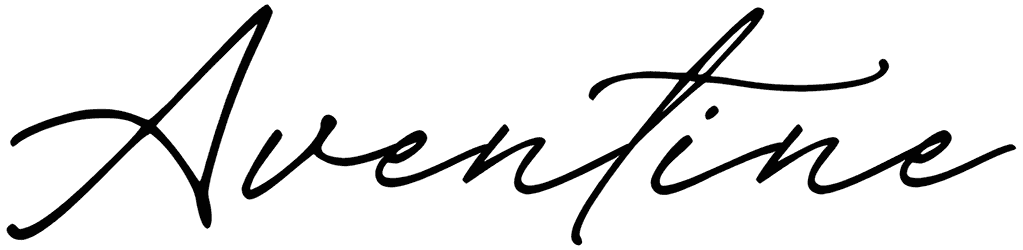
Samosir Font
Samosir can bring you back to the cheerful world and make you stand out from the crowd, whether you’re working on a watermark, invitation, poster, etc.
Feeling energized once more, this script, handwritten font with a romantic style meshes well with other design elements like pieces of a puzzle. After you’ve downloaded the font, you can use our comprehensive online catalog to look for others like it.
Designed by: Colative Studio